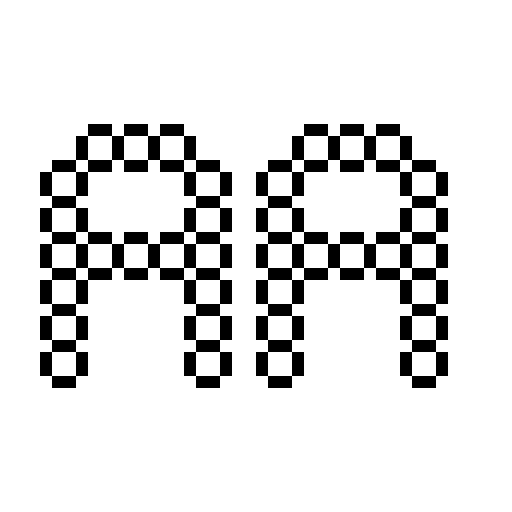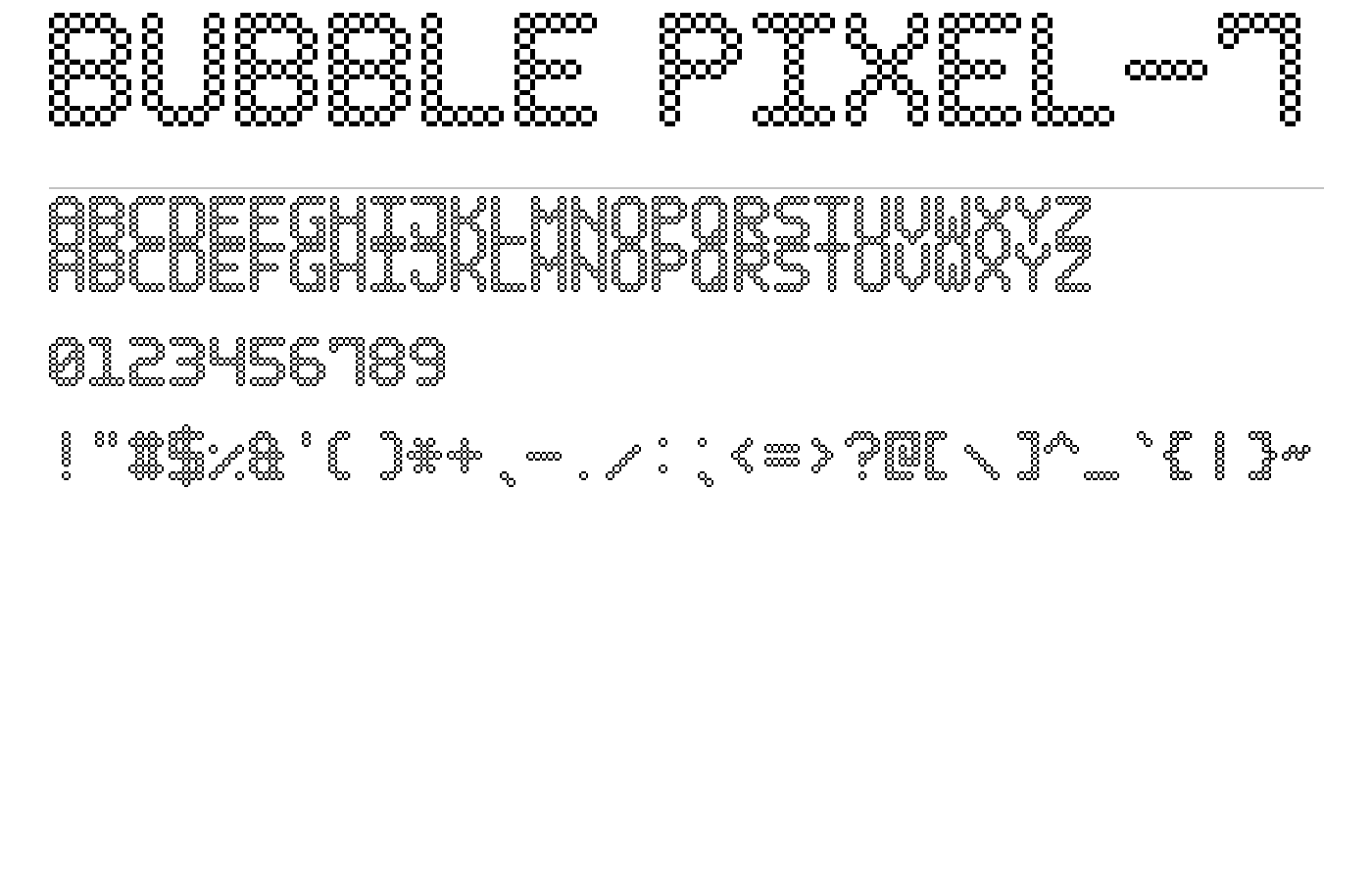
Bubble Pixel-7 is a unique pixel-style sans serif font characterized by its geometric, bubble-like dots forming each character. Its regular weight and monospaced rhythm give it a techy, retro digital vibe, ideal for playful, futuristic, or gaming-related designs. This distinctive font works best in headlines, logos, and digital-themed projects where a bold, nostalgic pixel art aesthetic is desired.
Bubble Pixel-7 Font
About Bubble Pixel-7 Font